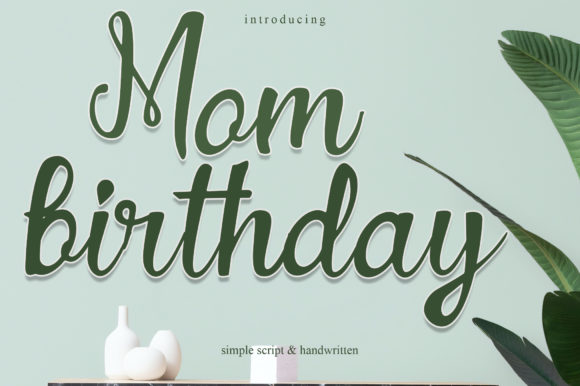
Step into a world of elegance and charm with Mom Birthday Font, the script font that will transform your creative visions into captivating realities. This exquisitely crafted font, brought to life by the talented tawondasstudio, is a symphony of beauty and sophistication, designed to elevate your designs to new heights.
With its delicate curves and graceful strokes, Mom Birthday Font exudes a timeless charm that will add a touch of elegance to any project. Whether you're designing a heartfelt birthday card, creating a stylish t-shirt, or crafting a unique logo, this font will effortlessly elevate your work.
Unleash your creativity and let your imagination soar with Mom Birthday Font. Its versatility knows no bounds, making it the perfect choice for a wide range of projects. From elegant invitations to playful social media graphics, this font will effortlessly adapt to your every need.
Join the ranks of discerning designers who have embraced Mom Birthday Font as their go-to choice for creating stunning designs that leave a lasting impression. Its intuitive design and seamless flow make it a joy to use, ensuring that your creative process is smooth and effortless.
Embrace the power of Mom Birthday Font and transform your creative endeavors into masterpieces. Its elegance, versatility, and charm will captivate your audience and leave them in awe of your design prowess.